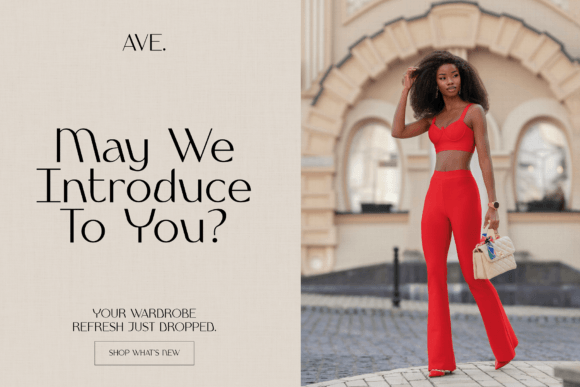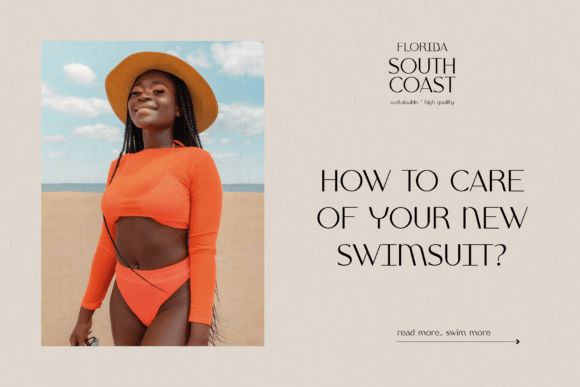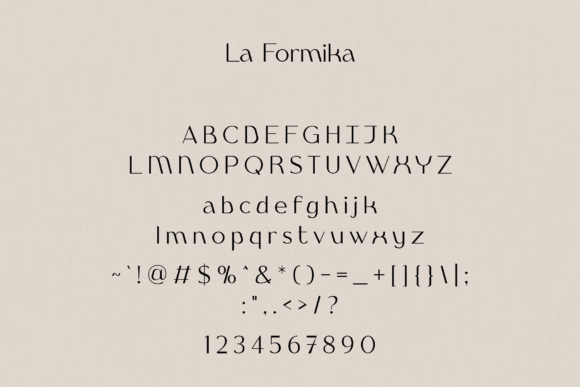
Introduction to La Formika Font
Introducing La Formika – the epitome of elegance and sophistication in a typeface.
Designed for graphic designers who work with high-end brands, La Formika exudes luxury, making it the perfect choice for fashion, beauty, cosmetics, and premium projects With its refined lines, graceful curves, and polished style, this typeface elevates any design, infusing it with a sense of class and exclusivity.
Key Features of La Formika Font
Why Choose La Formika Font?
La Formika Font offers exceptional quality and versatility, making it a valuable addition to your design toolkit. Whether you’re creating for personal projects or commercial use, La Formika Font delivers professional results.